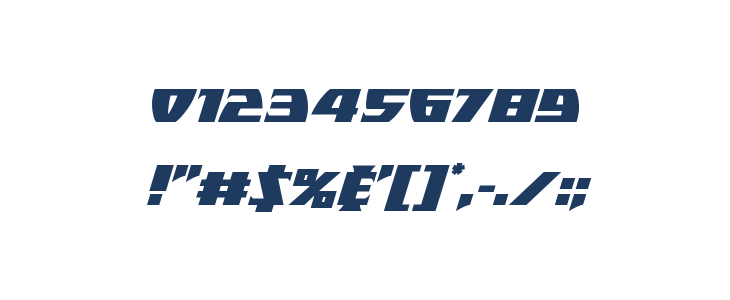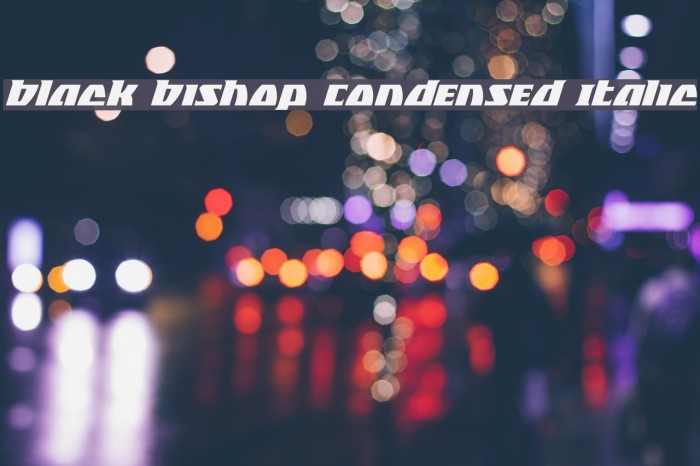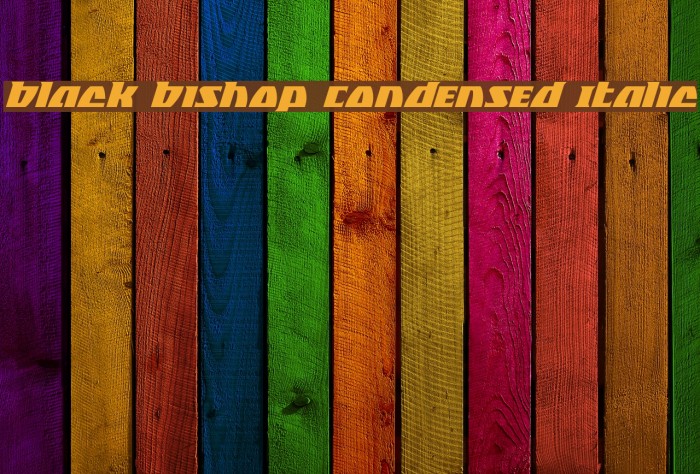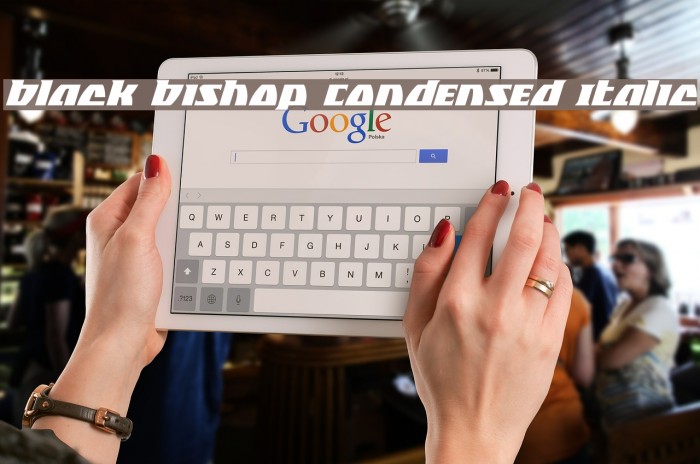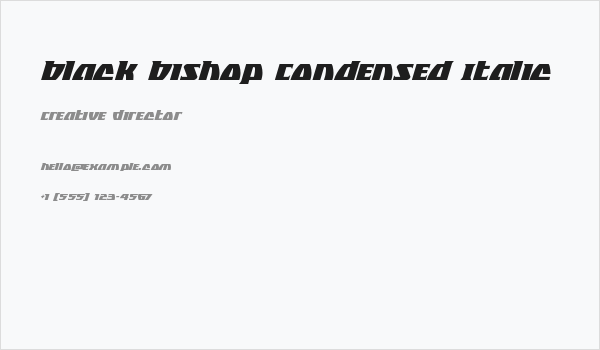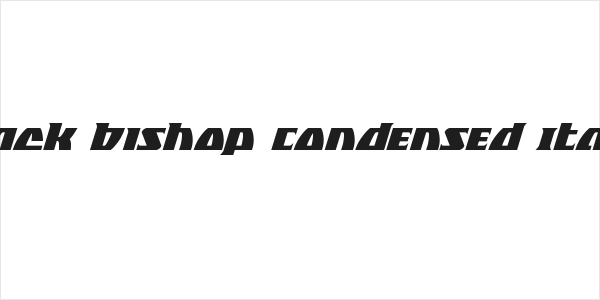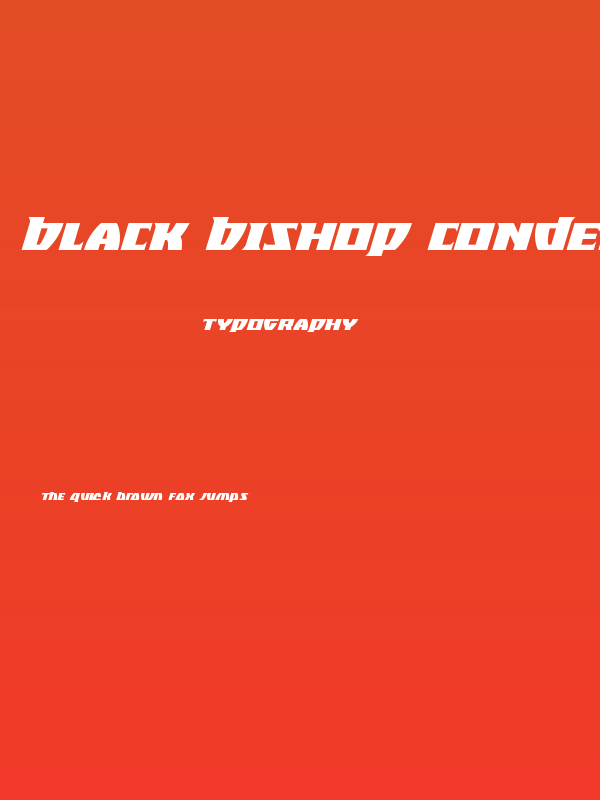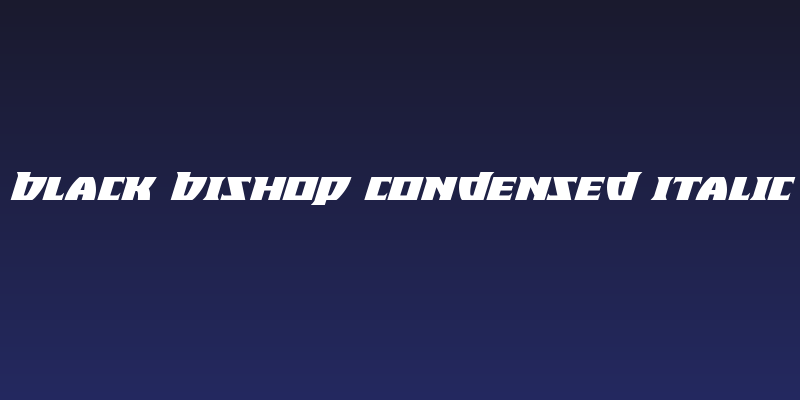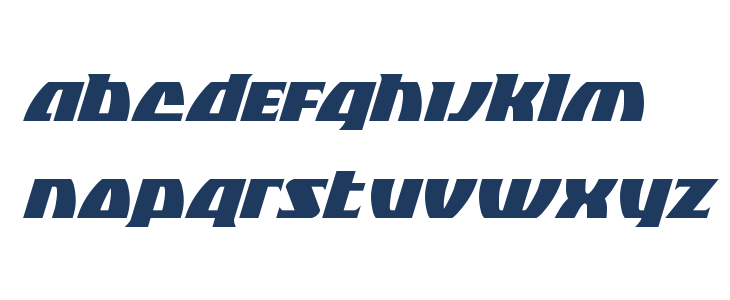
Black Bishop Condensed Italic Font
Black Bishop Condensed Italic Description
This font features a bold and dynamic style with a condensed and italicized form. The characters exhibit sharp angles and a geometric structure, giving it a modern and edgy appearance. The uppercase and lowercase letters maintain a consistent slant, enhancing the italic effect. Numbers and special characters are designed with the same boldness and angularity, ensuring uniformity across all glyphs. The font's condensed nature allows for efficient use of space, making it suitable for impactful headlines and titles. Its unique style is both eye-catching and assertive, ideal for projects that require a strong visual presence.